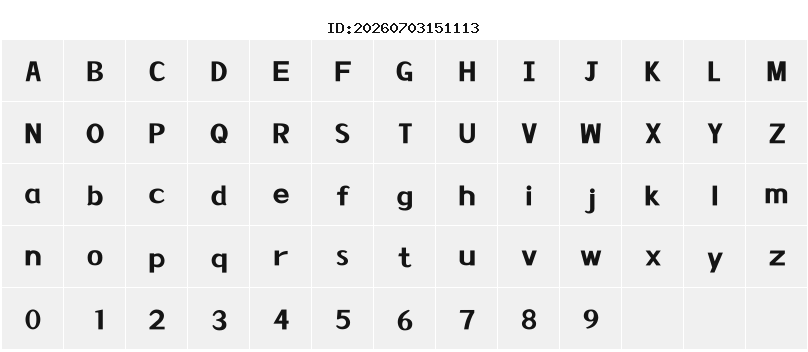
097-上首国宋体 Preview
• Font Name: 097-上首国宋体
• Font ID: 097-SSGuoSongTi:Version 1.30
• Full Font Name: 097-上首国宋体
• Version: Version 1.30 December 25, 2023
• PostScript Name: 097-SSGuoSongTi
• Character Count: 7569
• Manufacturer: 上首造字
About 097-上首国宋体.ttf
097-上首国宋体.ttf is a modern, elegant sans-serif font designed for ultimate readability and visual harmony. Perfect for branding, headlines, web design, and print materials.